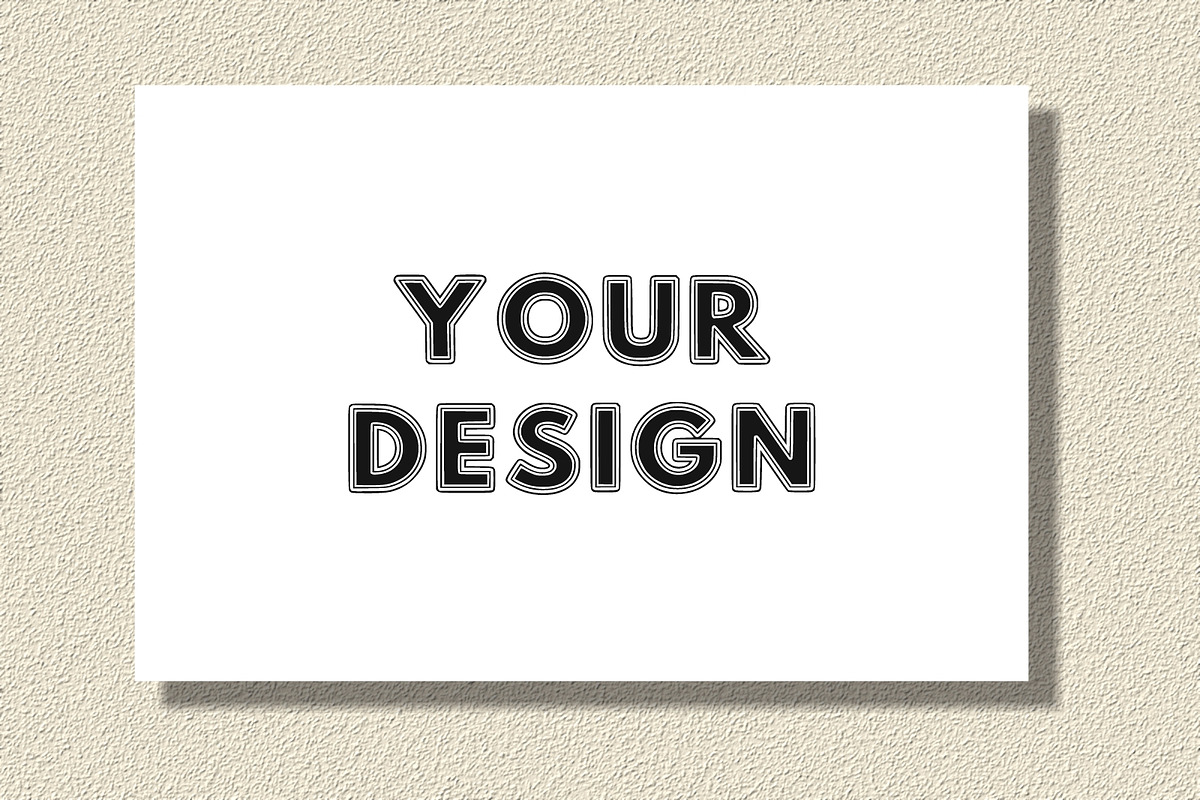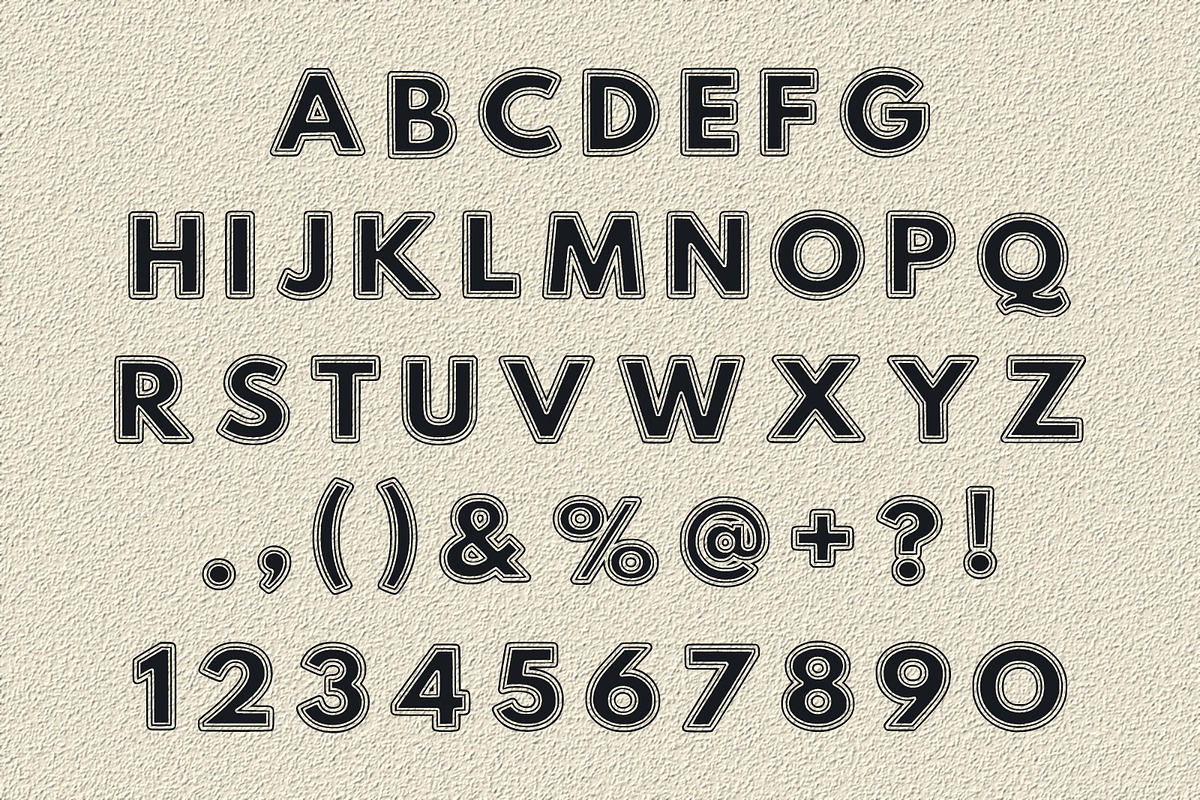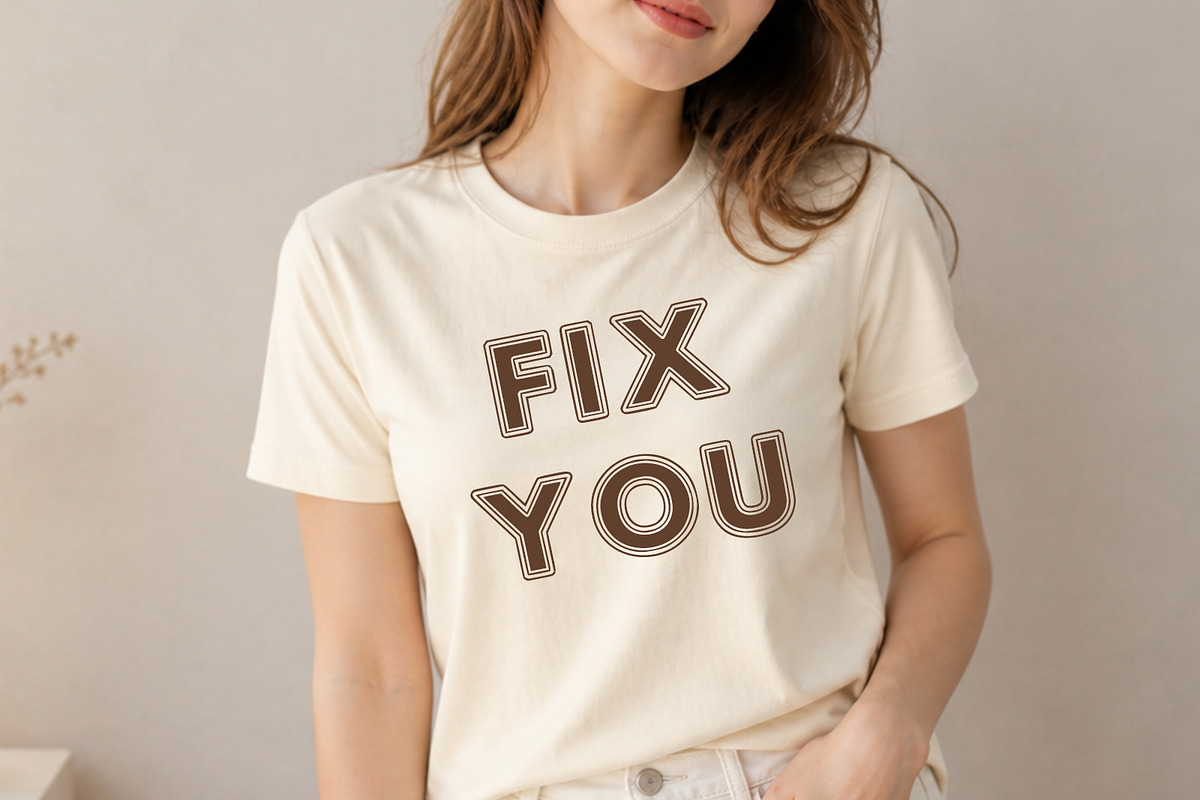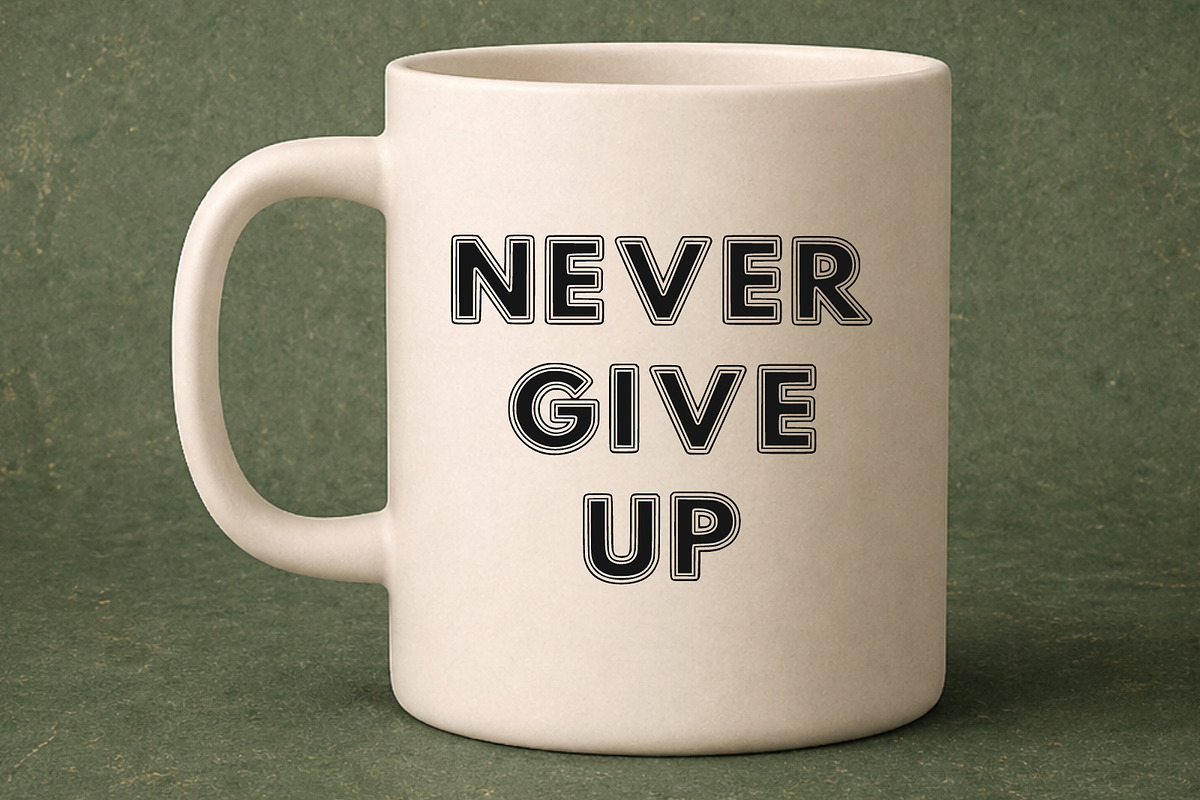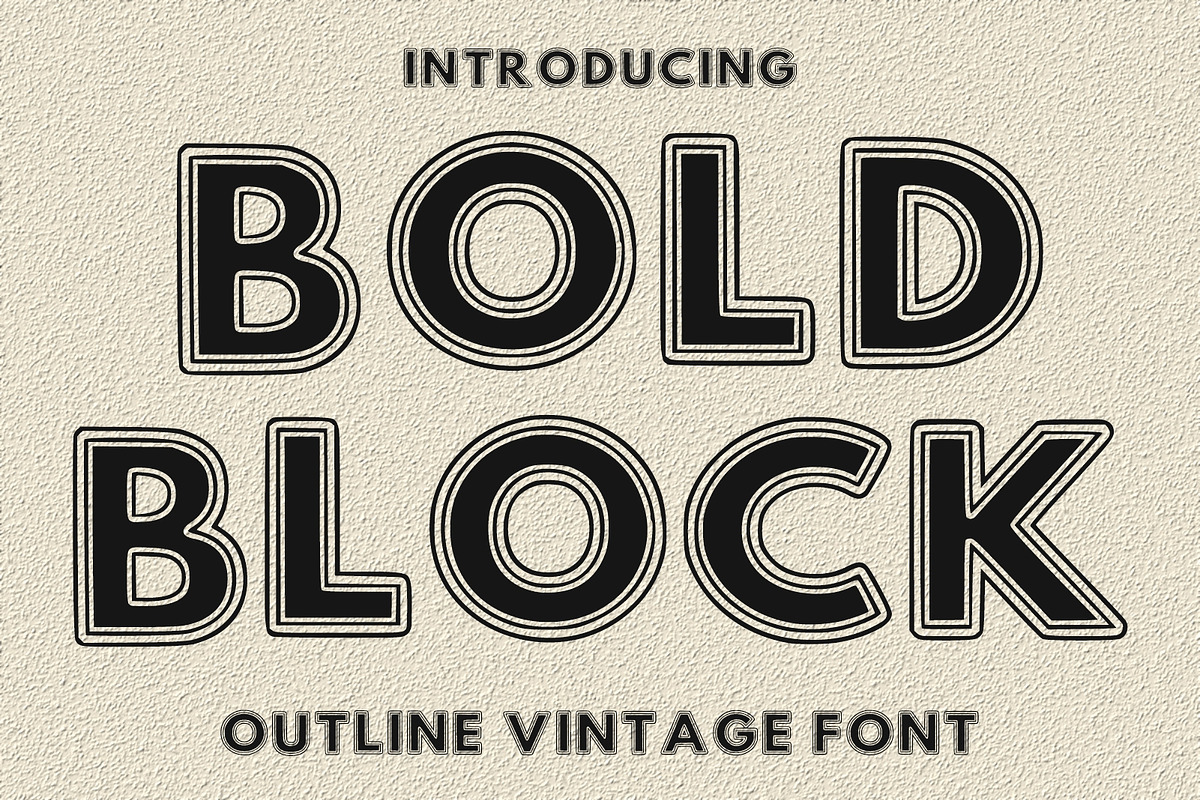
Bold Block
Bold Block is a modern vintage outline font that combines retro elegance with strong geometric letterforms. Designed with layered outline details and a bold display style, this typeface delivers a clean yet nostalgic aesthetic perfect for posters, logos, branding, apparel, packaging, signage, social media graphics, and creative retro projects. Its stylish vintage personality and eye-catching outline effect make every headline stand out with a timeless classic vibe.